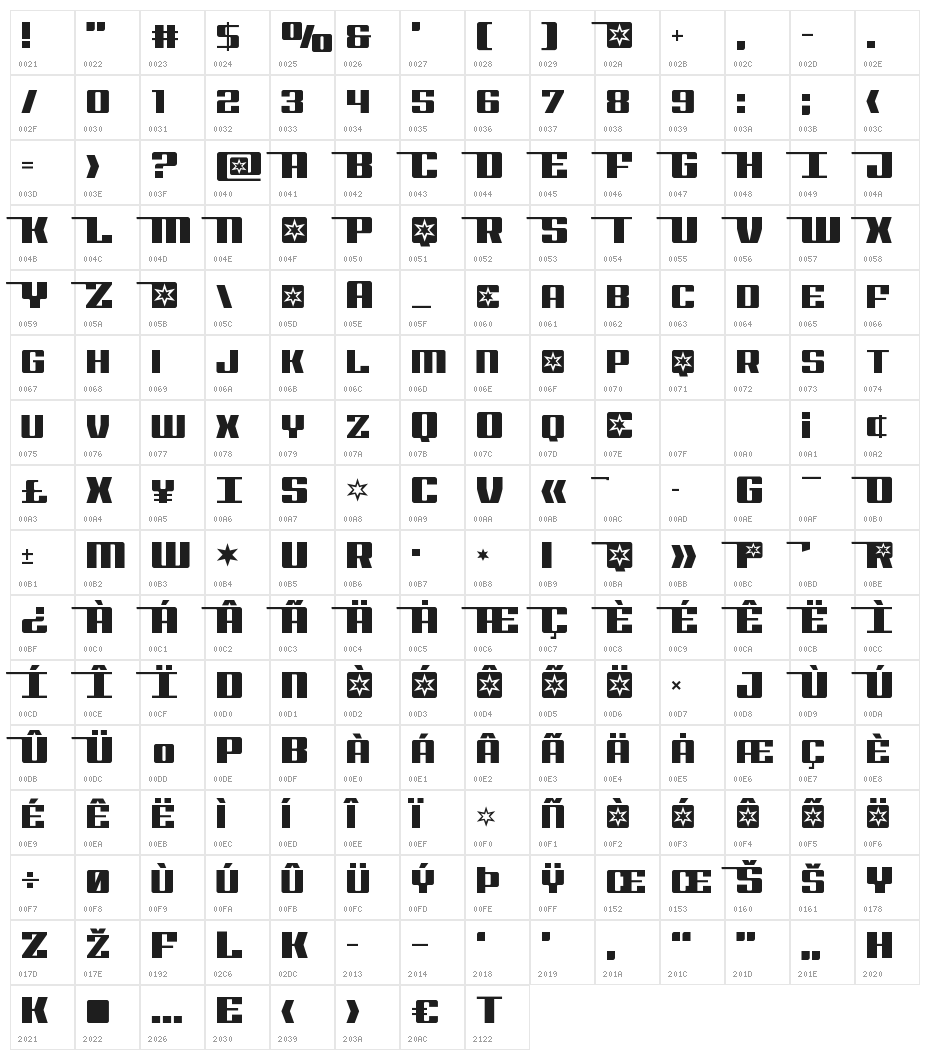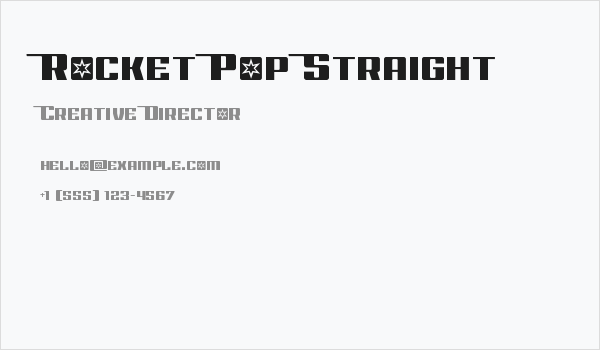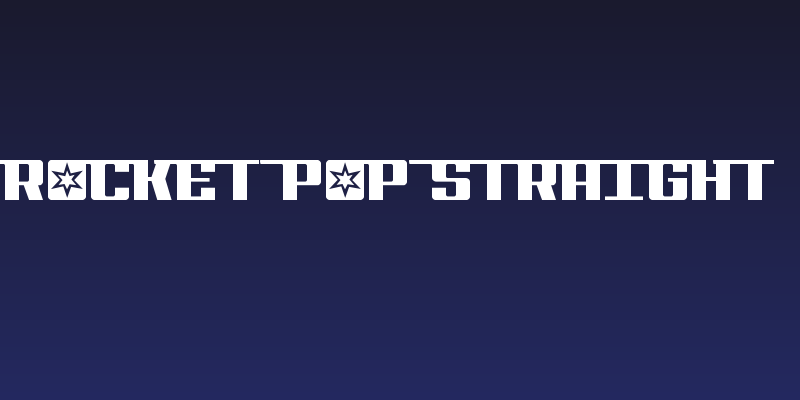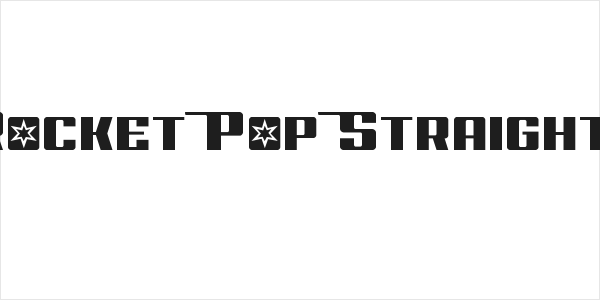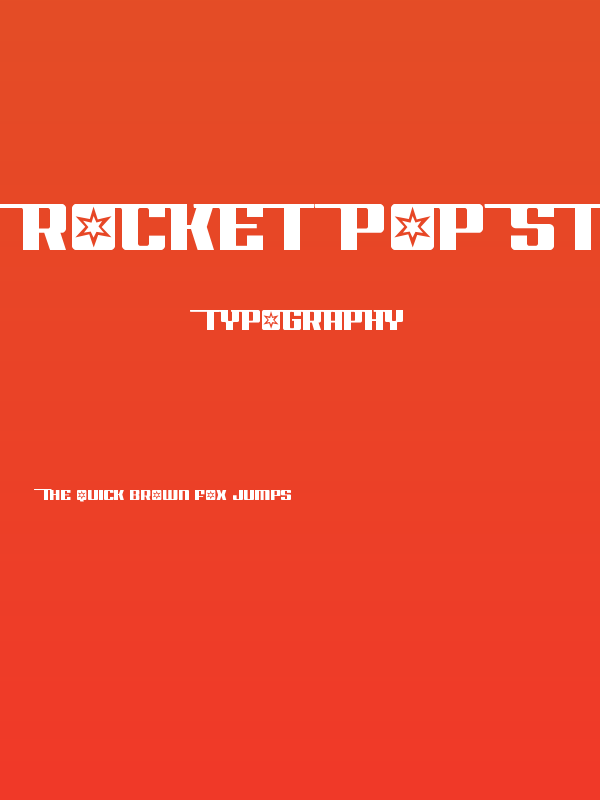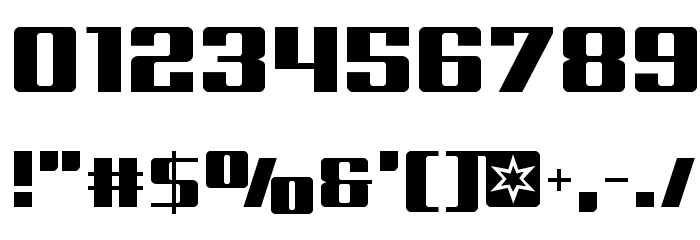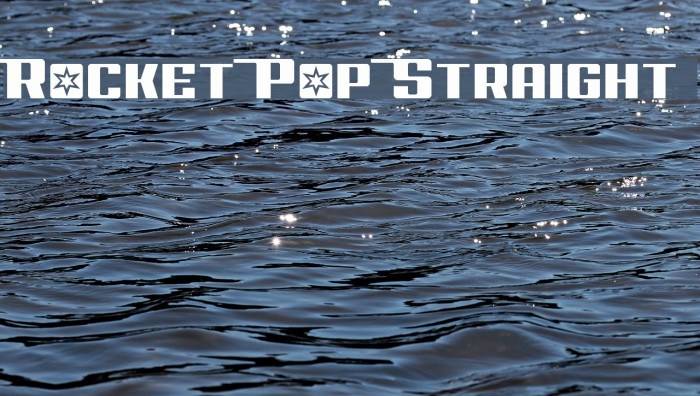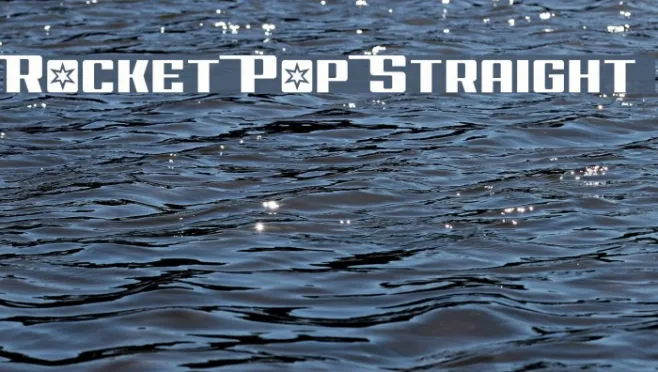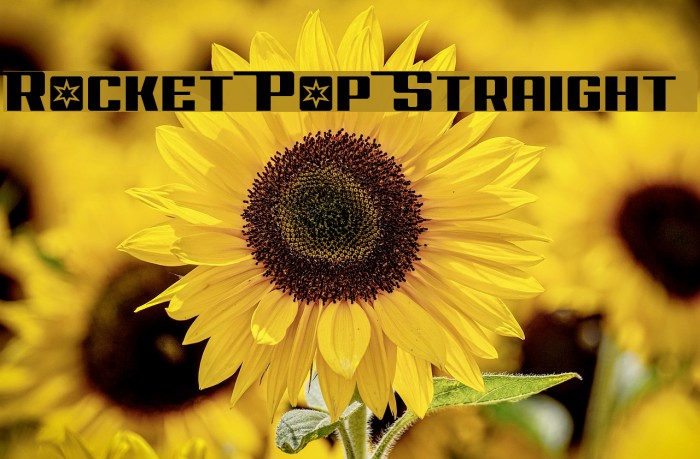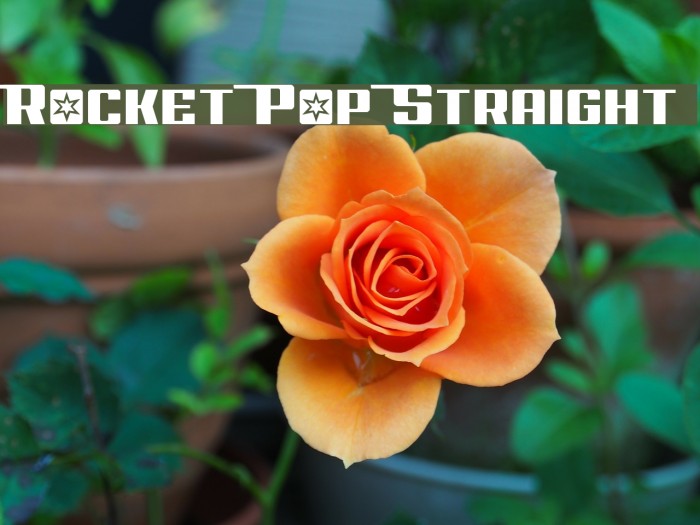
Rocket Pop Straight Font
Rocket Pop Straight Description
This font features a bold and striking design with a strong geometric influence. The uppercase letters are characterized by thick, block-like shapes with sharp angles, giving them a futuristic and industrial feel. The inclusion of star motifs within certain characters adds a unique and decorative element. The numerals and special characters maintain the bold, solid appearance, ensuring consistency across the typeface. This font is highly legible and commands attention, making it ideal for impactful designs.